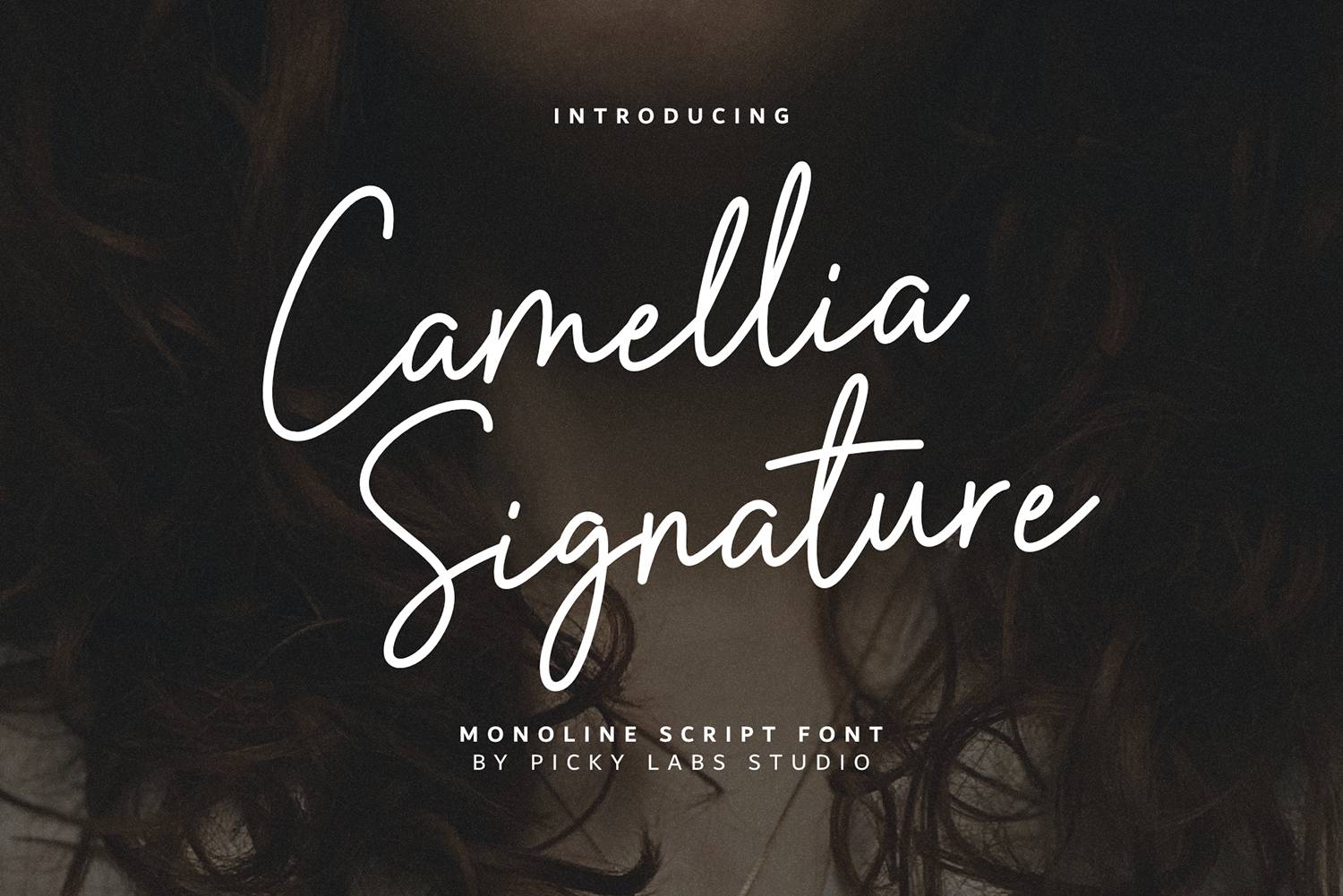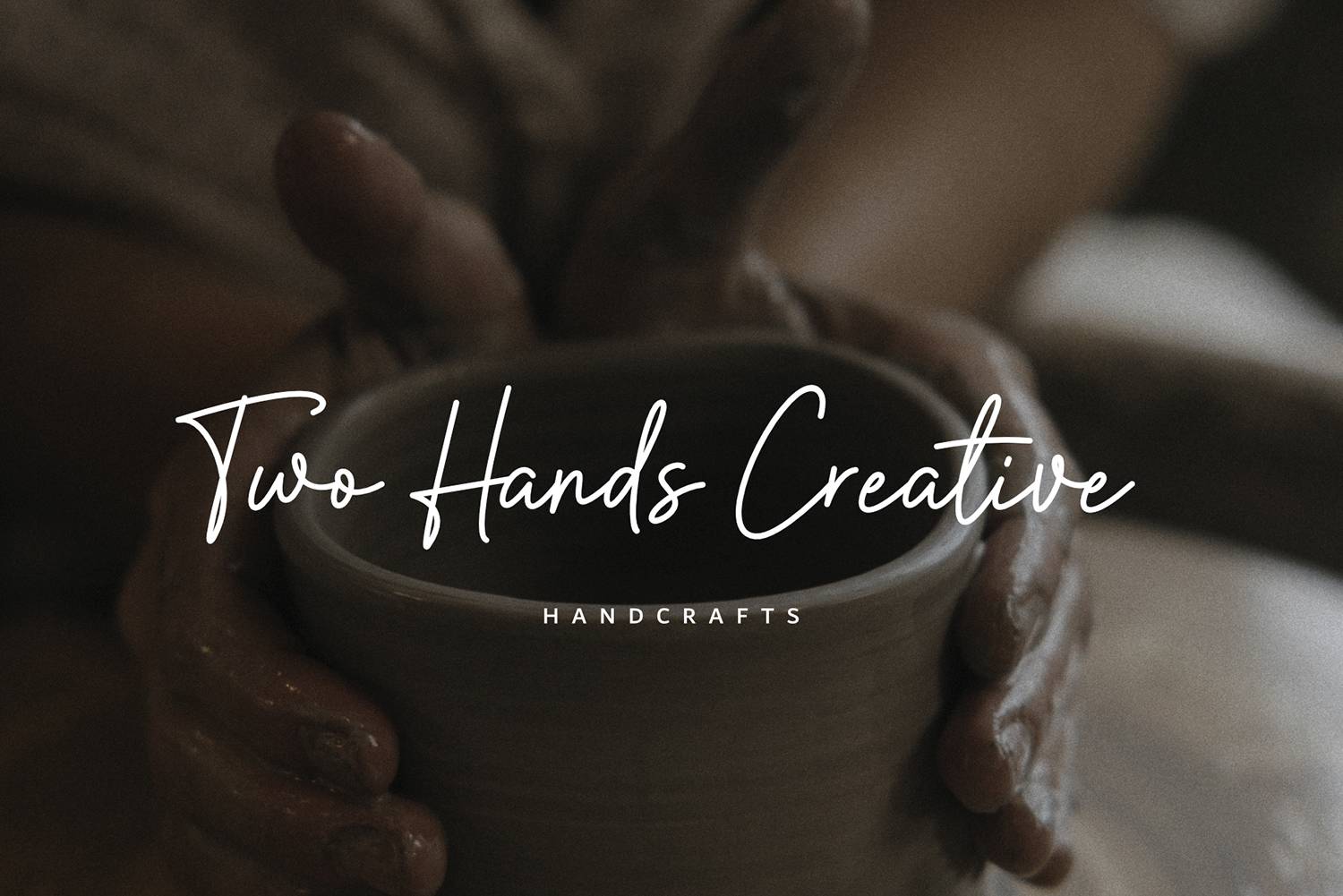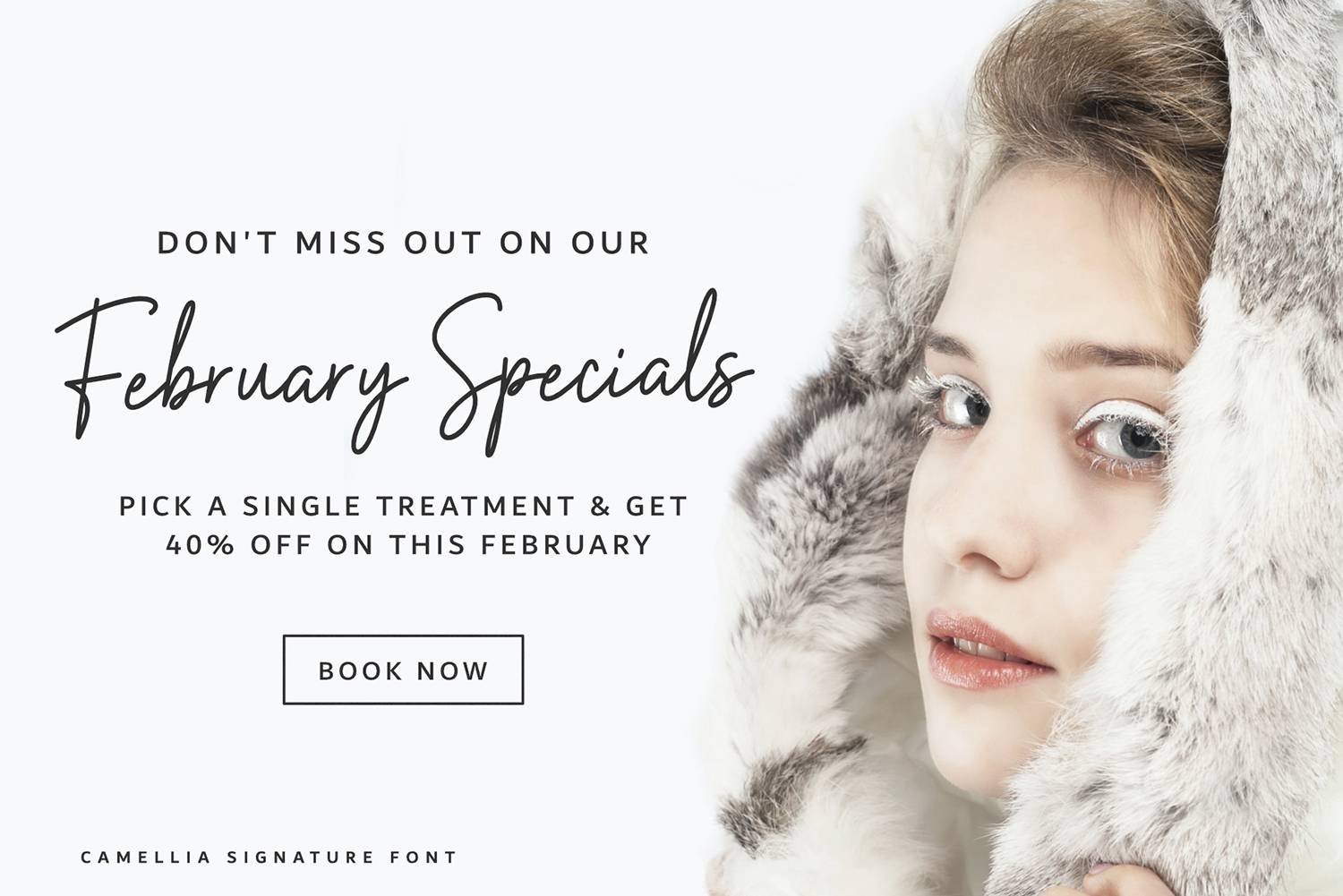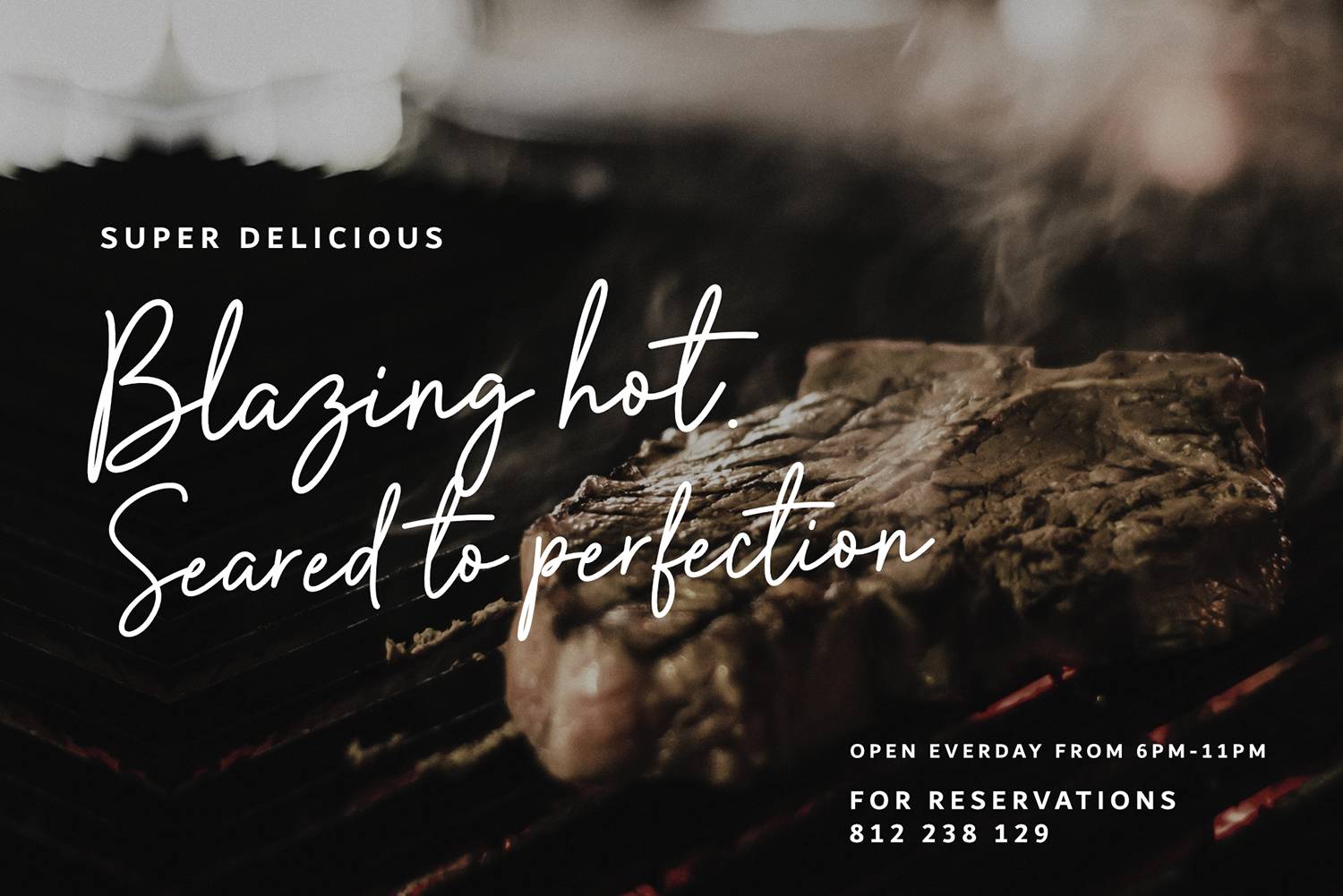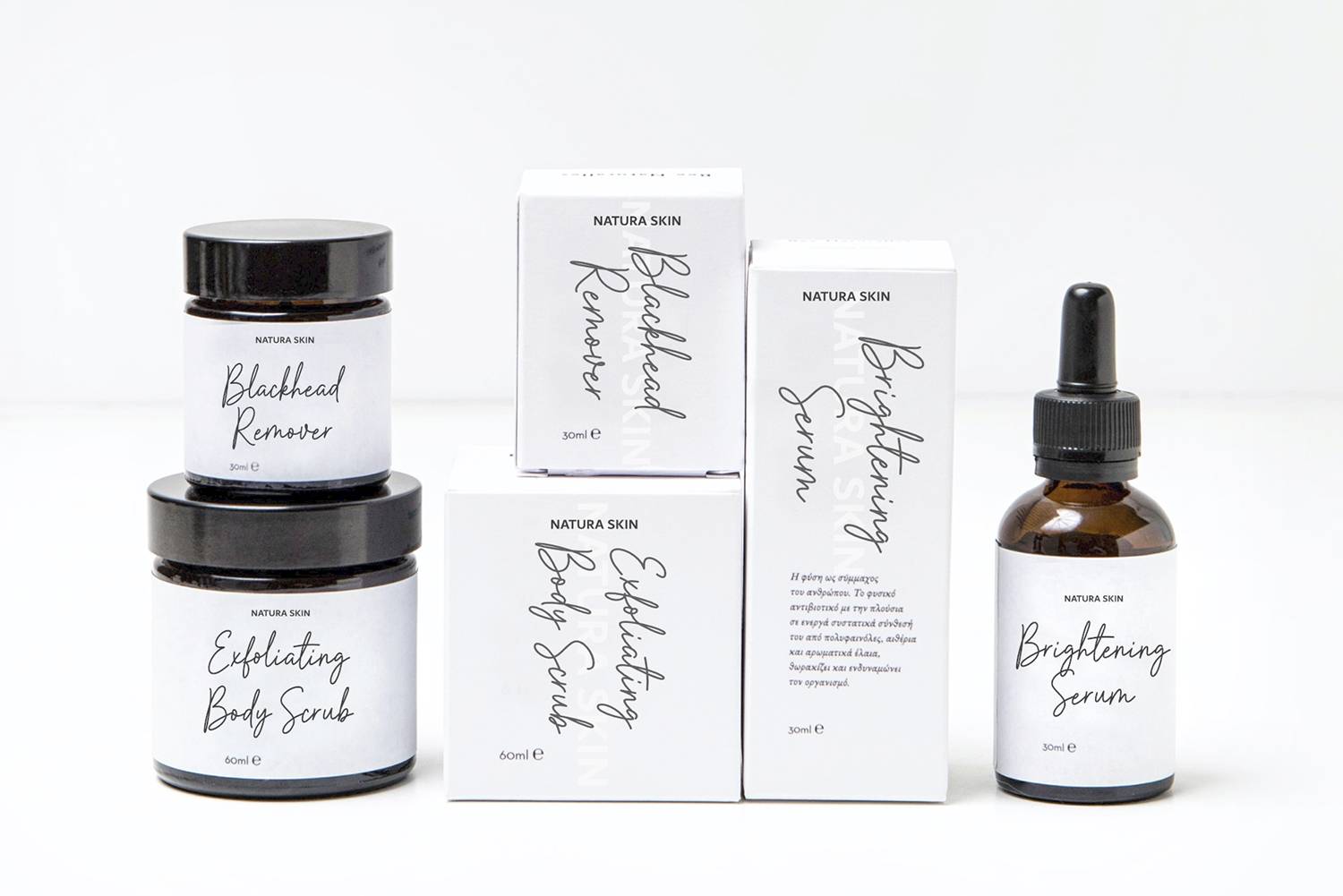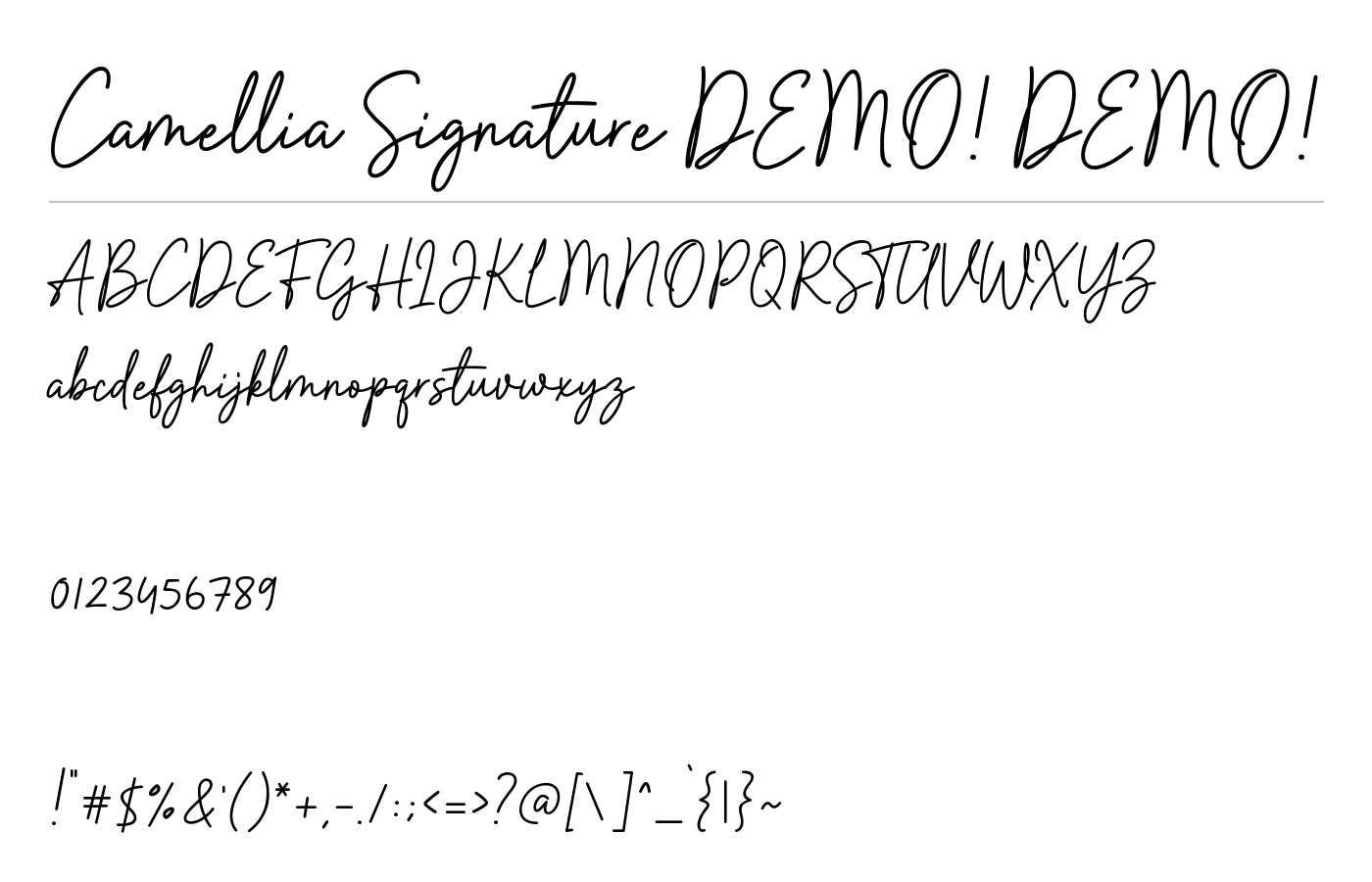
Camellia Signature Font is a delicate, handwritten script with a light, flowing style that mimics elegant personal handwriting. Its slender strokes and natural, slightly playful forms make it perfect for adding a personal, stylish touch to branding, invitations, and social media graphics where a casual yet refined look is desired. This font works especially well for creative projects that need a warm, approachable, and sophisticated feel.
Camellia Signature Font
About Camellia Signature Font
| Font family | Camellia Signature Font |
| Designer | Picky Labs Studio |